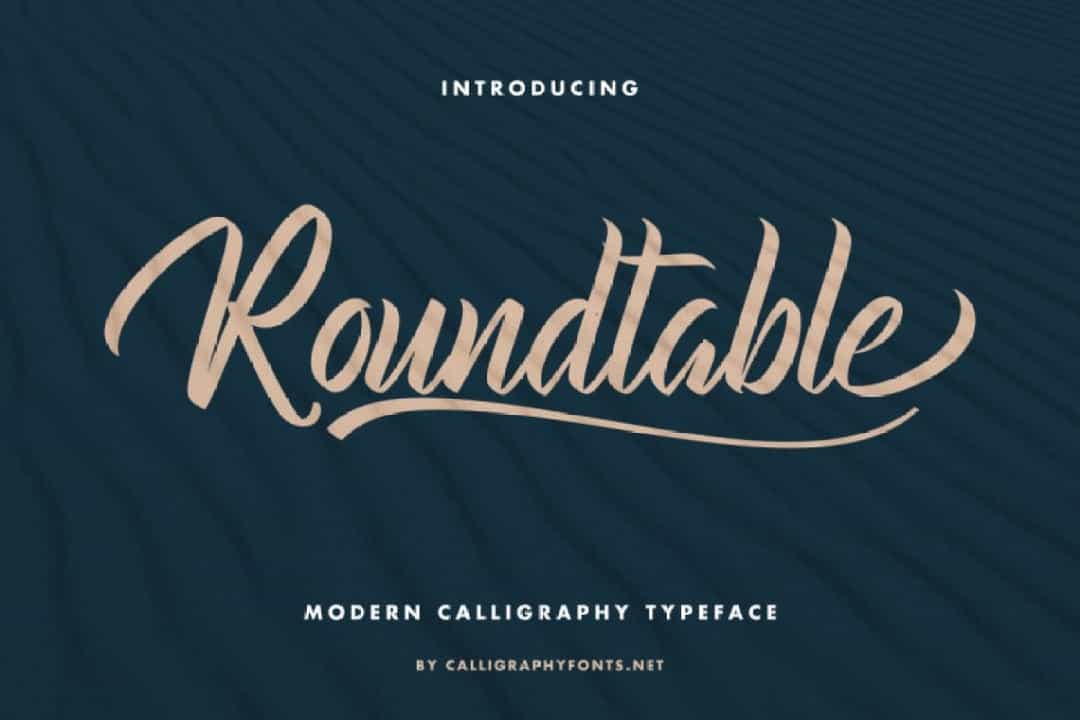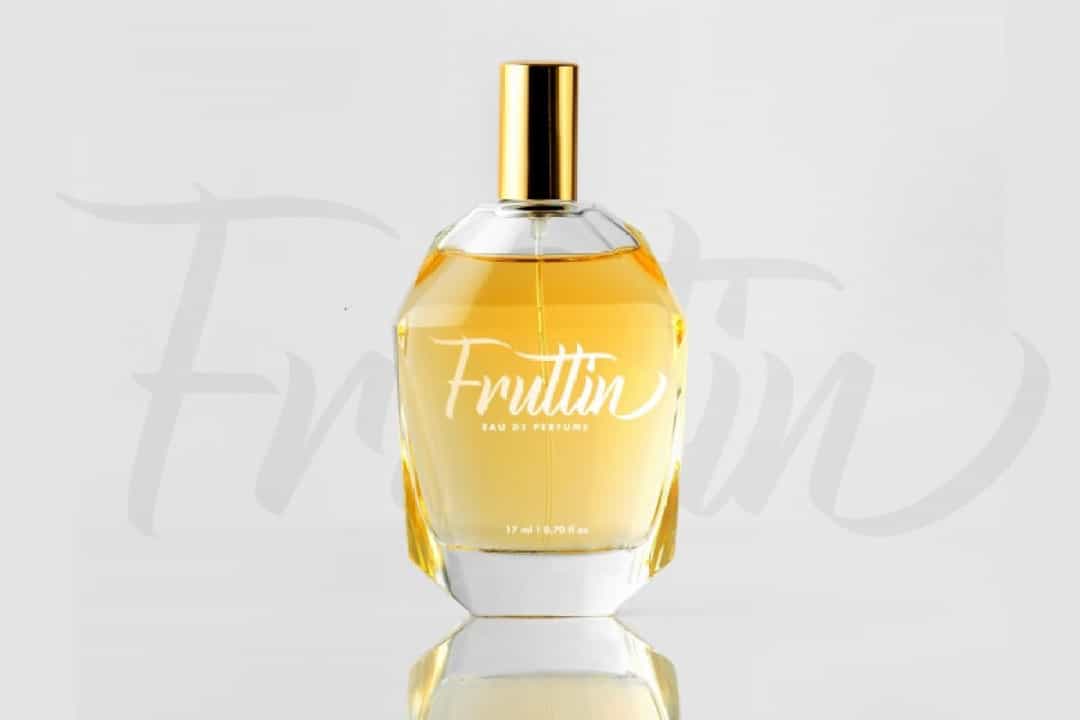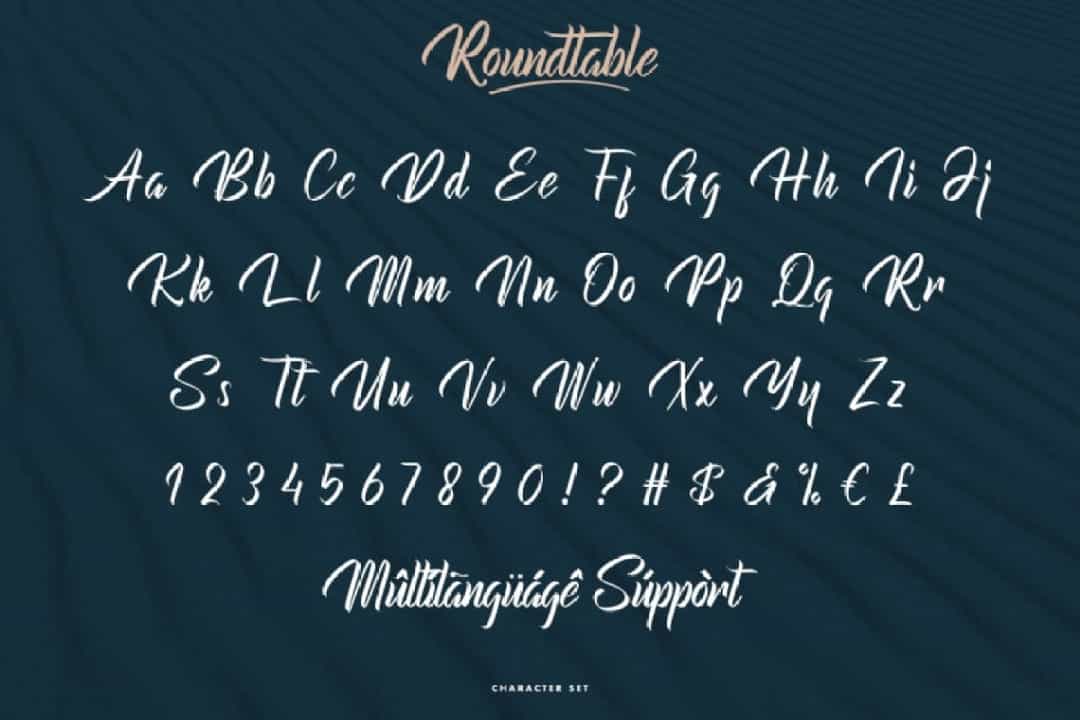
Roundtable is an innovative phonetic script typeface, perfect for branding, logo stationery, business card or flyer printing, signage and brochure printing projects. PUA encoded for ease of accessing all its characters!